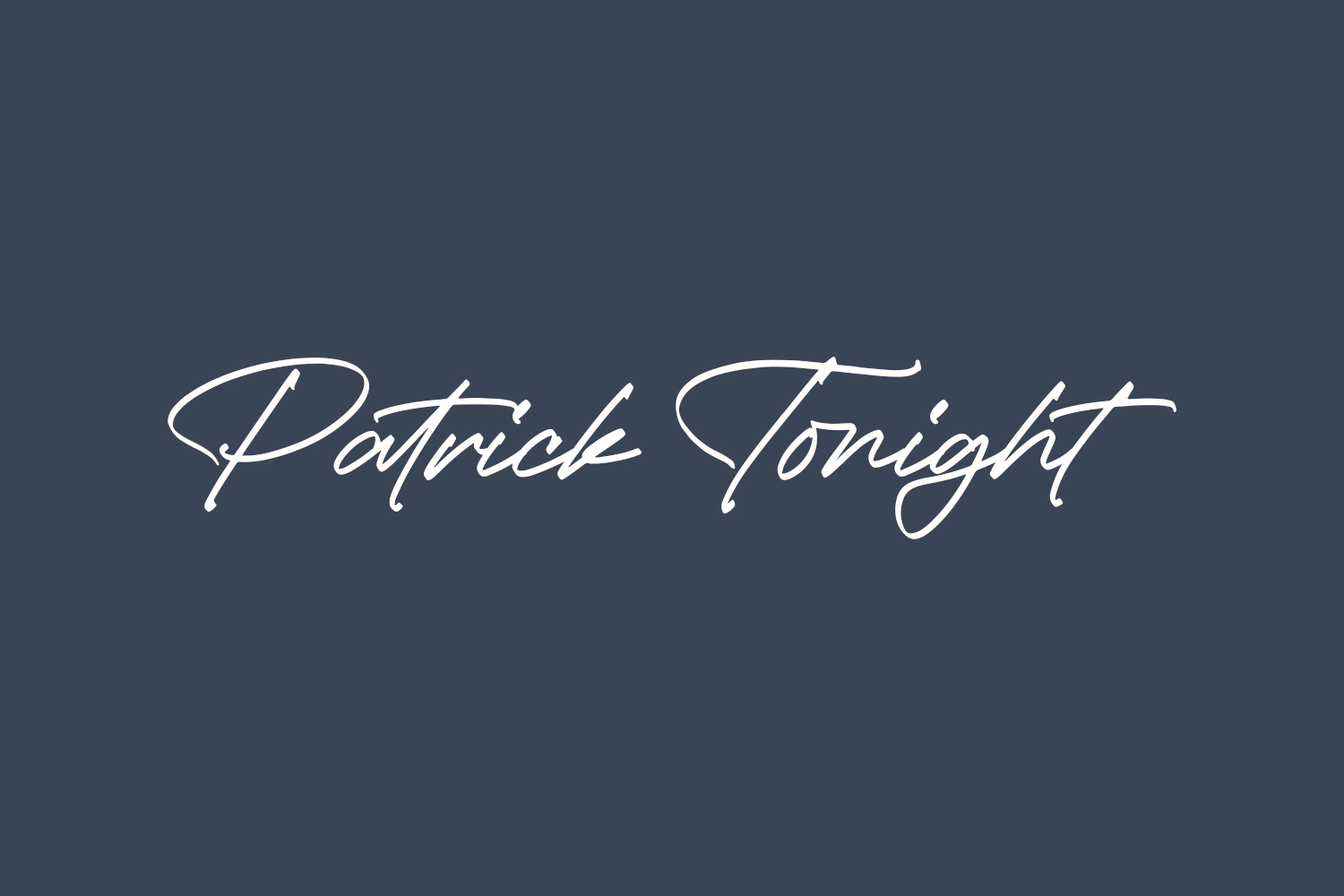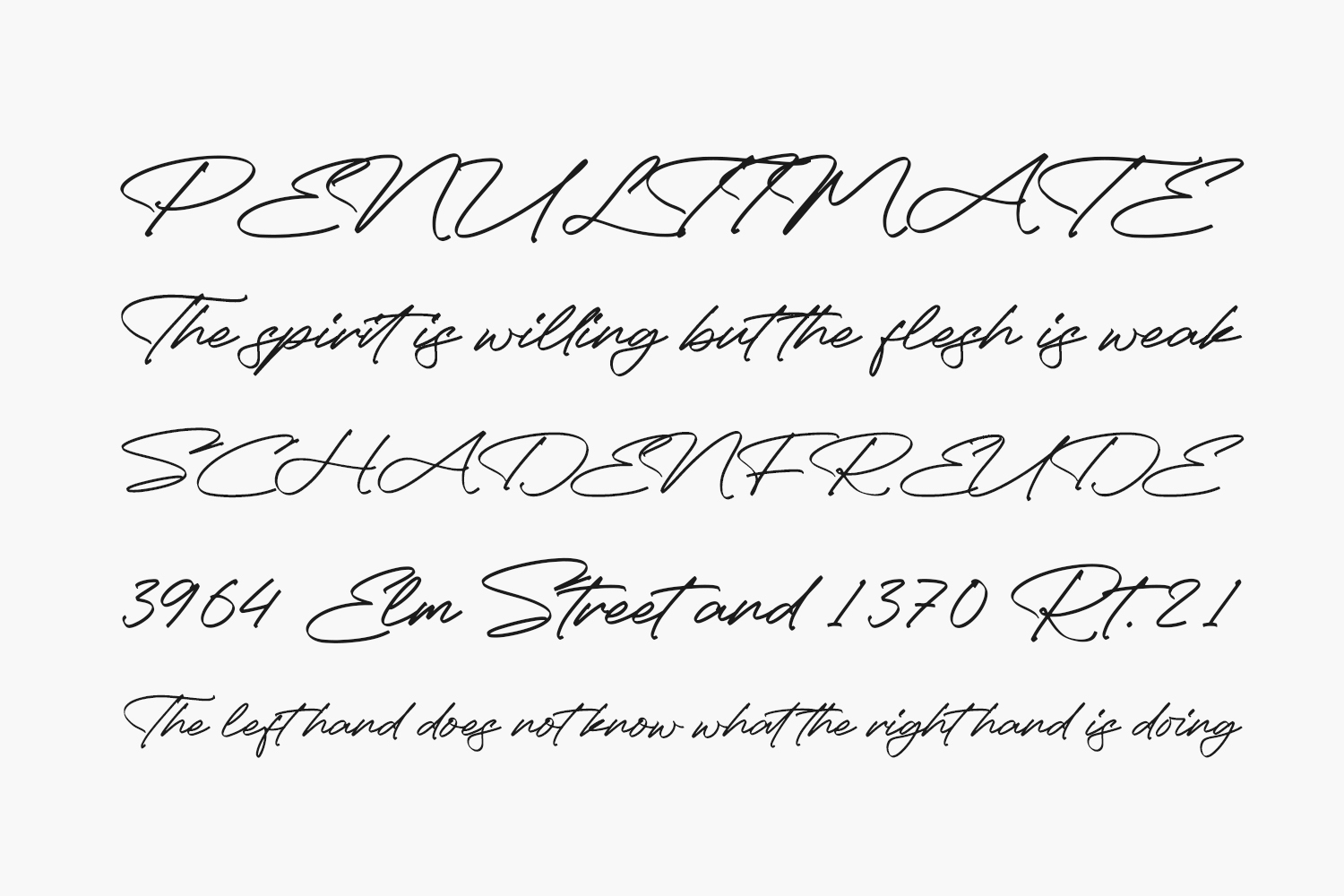
Patrick Tonight is a modern signature font designed by Letterena Studios to bring sophistication and personal flair to your creative projects. With its natural handwriting strokes and elegant curves, this free script font works perfectly for logos, greeting cards, wedding invitations, product packaging, and more. Available in OTF format with support for Latin characters, Patrick Tonight is ideal for designers seeking a stylish handwritten font that blends authenticity with professional appeal. Download now and elevate your designs with this stunning typeface!
Why Choose Patrick Tonight?
- Elegant Handwriting Style: Mimics real penmanship for a natural, personalized look.
- Versatile for Multiple Uses: Perfect for branding, stationery, apparel, and event-related design projects.
Where to Use Patrick Tonight?
Patrick Tonight shines across a variety of creative applications:
- Logos & Branding: Adds a human touch to brand identities for fashion labels, lifestyle brands, or boutique shops.
- Wedding Invitations: Perfect for formal stationery sets, RSVP cards, and bridal name tags.
- Social Media Quotes: Creates soft, elegant text overlays for Instagram Stories, Pinterest pins, and TikTok videos.
- Packaging Design: Ideal for product labels, gift tags, and artisanal brand materials.
- Greeting Cards & Mugs: Brings warmth and personality to printed goods like mugs, t-shirts, notebooks, and tote bags.
Design Tips with Patrick Tonight
To maximize the elegance of Patrick Tonight, pair it with minimalist sans-serif fonts like Montserrat or Lato for contrast and clarity. Use this font at medium-to-large sizes to highlight its expressive strokes and fluidity. For digital use, apply it to short, meaningful phrases over pastel backgrounds or subtle textures. Try our interactive font preview tool below to test Patrick Tonight with your own text before downloading!